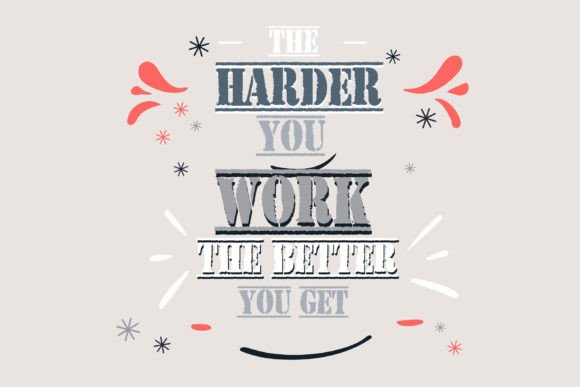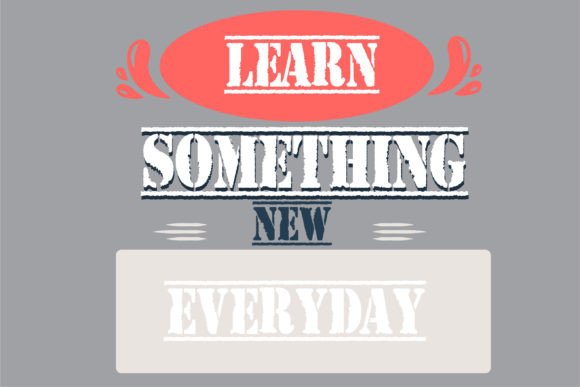
This boxed-up stencil font has a textured line that you can finish off using rectangle brackets and underscore. Add it to your creative projects and you will be astounded by the generated outcome!